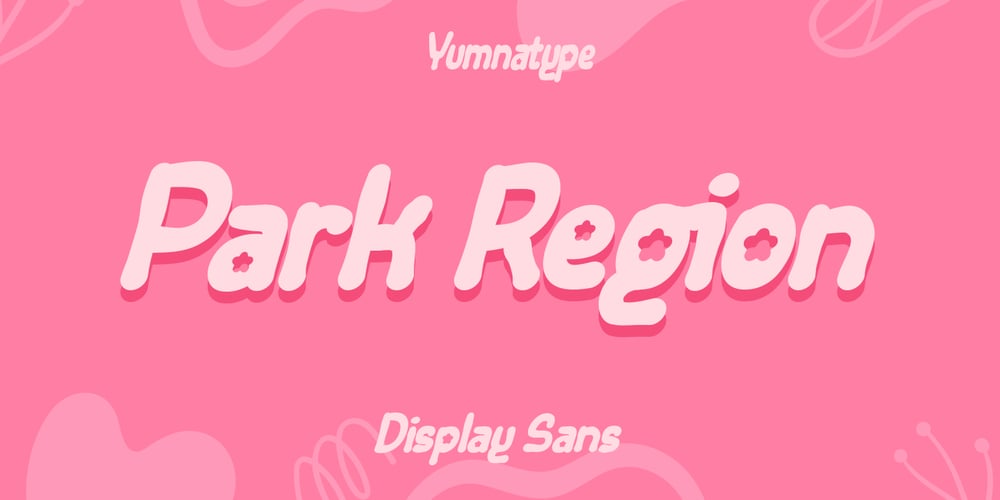
Park Region Font Family was designed by Donis Miftahudin and published by Yumna Type. Park Region contains 1 styles and family package options. Park Region is a lively and dynamic sans serif display font that exudes a playful charm. With its whimsical style and bold design, this font adds a touch of personality and energy to any design project. Each letter in Park Region is crafted with bold strokes and playful shapes, giving it a sense of movement and vitality. The bold weight of the font adds to its strong and confident presence. What sets Park Region apart is its low contrast, which ensures clarity and legibility while maintaining its playful character. In addition, enjoy the features here.Features: Ligatures Multilingual Supports PUA Encoded Numerals and Punctuations Park Region fits in headlines, logos, posters, flyers, branding materials, print media, editorial layouts, and many more designs. Find out more ways to use this font by taking a look at the font preview.Thanks for purchasing our fonts. Hopefully, you have a great time using our font. Feel free to contact us anytime for further information or when you have trouble with the font. Thanks a lot and happy designing.